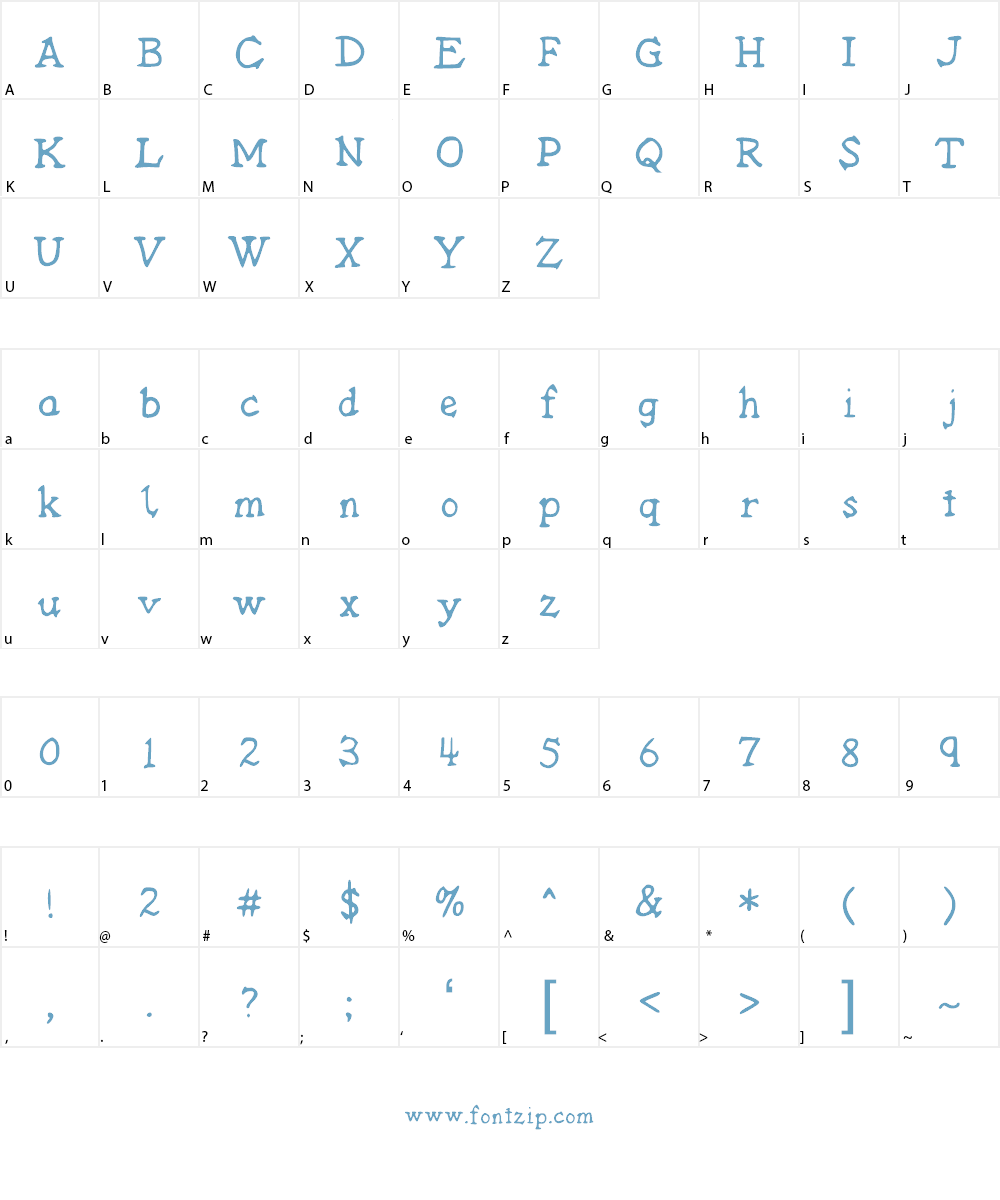
There are few fonts for elementary school level to be used for serious as well as playful uses, and even fewer serif fonts that way. That's where Midtown Roman Schoolhouse comes in.
This is the font if you want a serif font styled more how children are taught to write manuscript in elementary school. It can also be used for more serious uses. In fact the caps are exactly the same as the recently renamed "Midtown Roman Original" font.
The new "Midtown Roman" is a bit less playful.